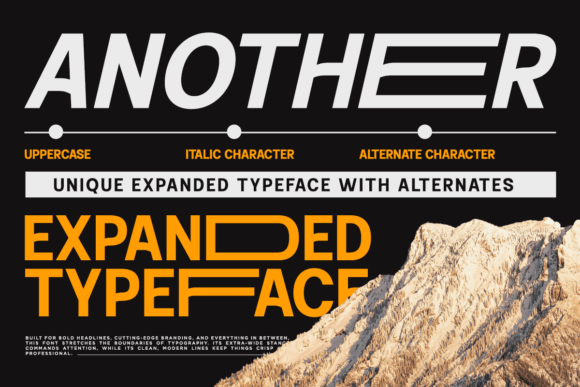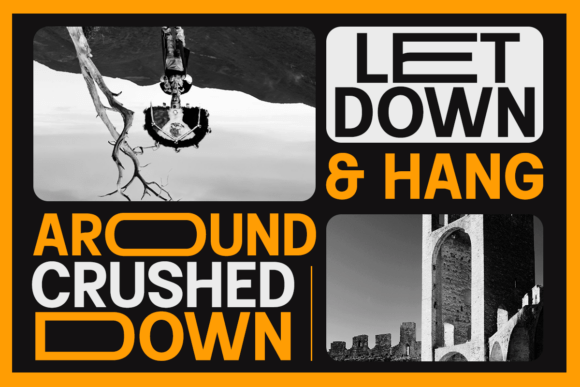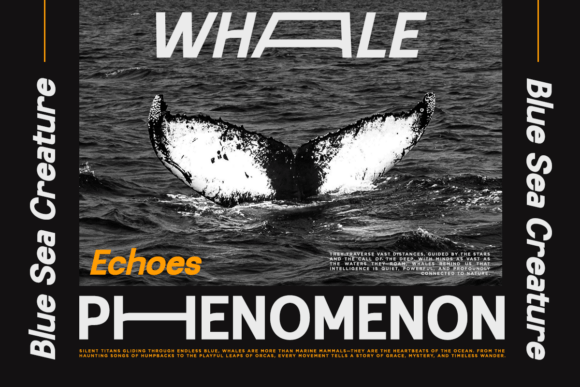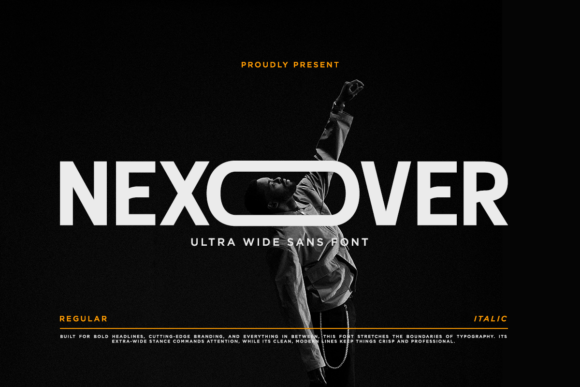
Introduction to Nexover Font
Nexover is a ultra-wide sans-serif typeface with a modern and futuristic style.
Designed for posters, headlines, branding, and editorial use, it features clean lines, strong geometric shapes, and unique alternate characters for a striking visual impact Perfect for branding, logo, website, social media, headline, and even sentences.
Key Features of Nexover Font
Why Choose Nexover Font?
Nexover Font offers exceptional quality and versatility, making it a valuable addition to your design toolkit. Whether you’re creating for personal projects or commercial use, Nexover Font delivers professional results.